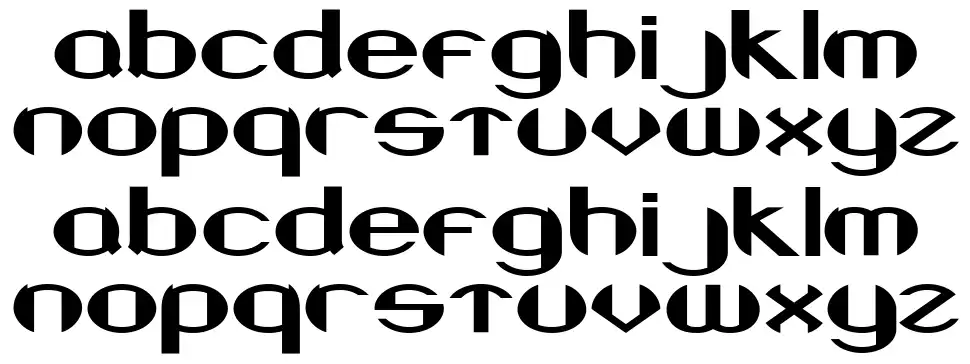
Beneath The Surface Font
Beneath The Surface Font By Sendoa Bergasa Fontriver This font accurately emulates the one used in the tv show "seaquest dsv 2032". Download free beneath the surface font, view its character map and generate text based images or logos with beneath the surface font online.
Beneath The Surface Font By Sendoa Bergasa Fontriver This font features a futuristic and geometric design, characterized by its bold and angular letterforms. the uppercase and lowercase letters share a consistent style, with sharp edges and a distinct, modern aesthetic. Download beneath the surface font from free cdn or use it on your website as webfont. Fontfamily beneath the surface. fontsubfamily regular. Beneath the surface font available in ttf format for you to download. fontpalace offers largest database of free fonts. Beneath the surface font details. view font details, character map, custom preview, downloads, file contents and more. Character map please use the pulldown menu to view different character maps contained in this font.